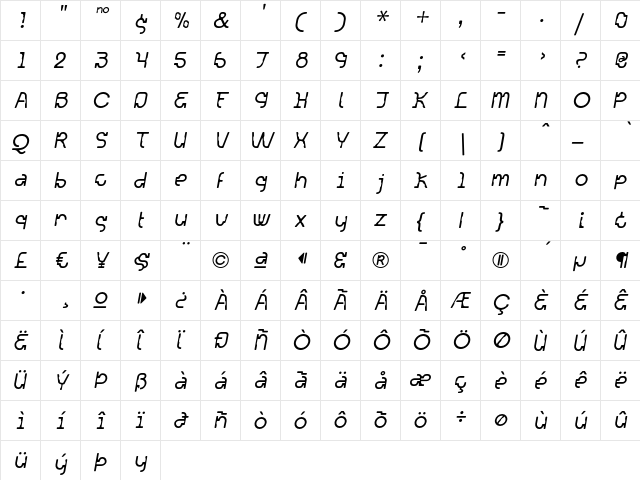
Acetone Oblique Font Preview
Acetone Oblique
Acetone Oblique Font Details
Design Context for Acetone Typeface
Acetone takes a measured approach to typography — its balanced proportions and neutral character make it a reliable workhorse for both digital and print work. Its italic angle brings a sense of urgency and motion to the letterforms.